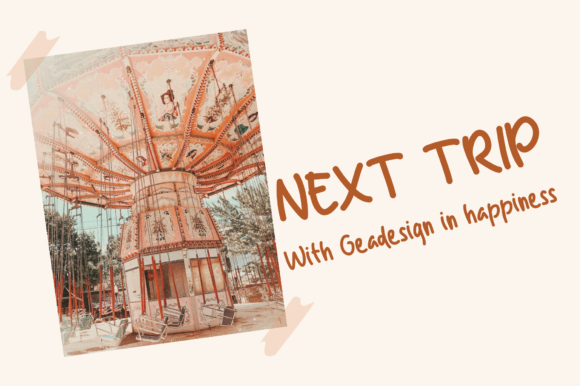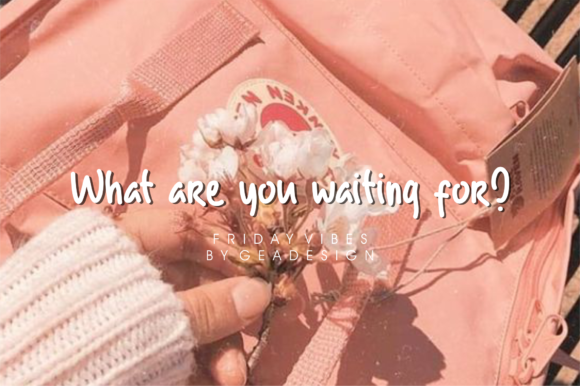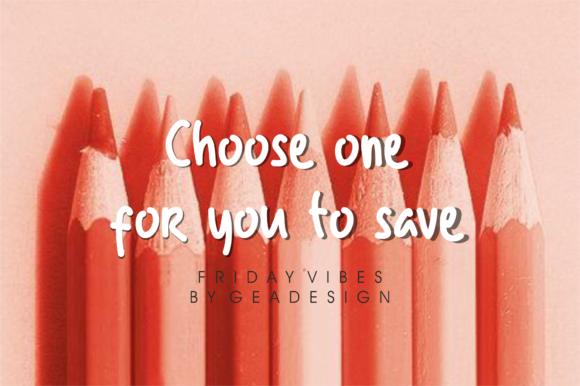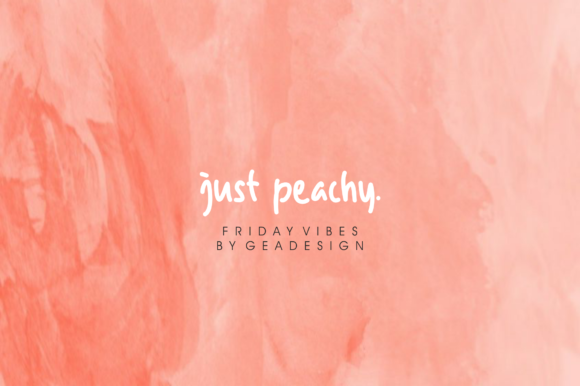
Friday Vibes Font: Elevate Your Designs with a Calm and Cool Handwritten Style
Are you tired of using the same old fonts in your design projects? Do you want to add a unique touch to your creations? Look no further than the Friday Vibes Font! This calm and cool handwritten font is perfect for designers and crafters looking to elevate their work with a light and refreshing feel.
What is Friday Vibes Font?
Friday Vibes is a beautifully crafted handwritten font with a light feel that’s perfect for a variety of design projects. Its calm and cool style makes it ideal for creating relaxing and inspiring content. Whether you’re working on a branding project, creating social media graphics, or designing a website, Friday Vibes Font is sure to add a unique touch to your work.
Key Features of Friday Vibes Font
- Handwritten style: Friday Vibes Font features a beautiful handwritten style that’s perfect for creating personal and relatable content.
- Light feel: The font’s light feel makes it easy to read and perfect for designs that require a subtle touch.
- Calm and cool: The font’s calm and cool style makes it ideal for creating relaxing and inspiring content.
- Unique feel: Friday Vibes Font is sure to add a unique touch to any design project, setting it apart from more traditional fonts.
Friday Vibes Font is perfect for designers and crafters who want to add a personal touch to their work. Whether you’re creating:
- Branding materials: Use Friday Vibes Font to create unique and memorable branding materials, such as logos, business cards, and letterheads.
- Social media graphics: Add a personal touch to your social media graphics, such as Instagram posts and Facebook covers, with Friday Vibes Font.
- Websites: Use Friday Vibes Font to create a unique and refreshing website design that’s sure to stand out.
- Crafting projects: Add a personal touch to your crafting projects, such as handmade cards and gift tags, with Friday Vibes Font.
Why Choose Friday Vibes Font?
With so many fonts to choose from, why should you choose Friday Vibes Font? Here are just a few reasons:
- Unique style: Friday Vibes Font features a unique style that’s sure to set your designs apart from the rest.
- Easy to read: The font’s light feel and clear style make it easy to read, even at small sizes.
- Versatile: Friday Vibes Font is perfect for a variety of design projects, from branding materials to social media graphics.